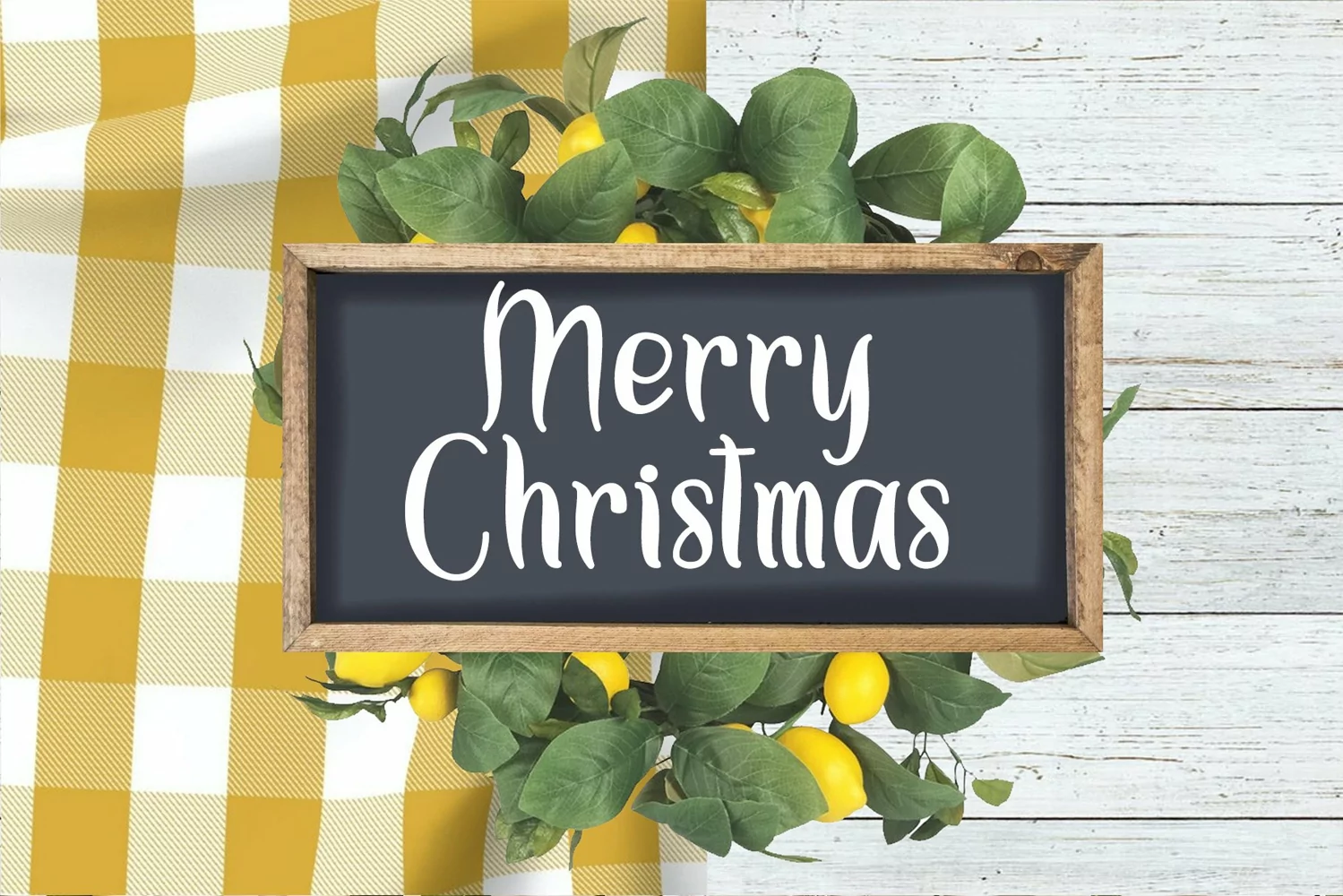
Beautiful Handwritten
Christmas Heart
Christmas Heart is a Display font by Letterafa Studio. It will give your designs a unique and sweet look. Christmas Heart font is perfect; logos, greeting cards, a package design, a brand identity, craft design, any DIY project, book title, wedding invitation, packaging, and more.